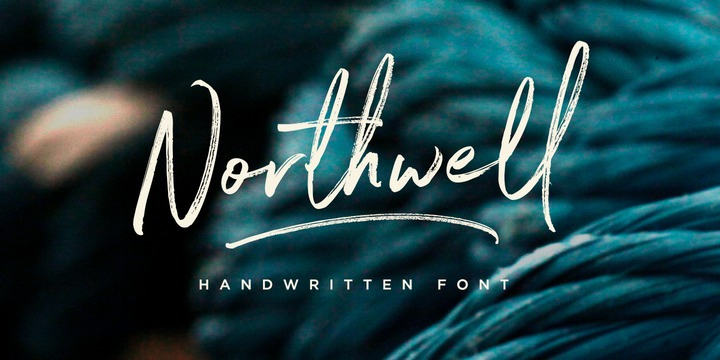
Northwell Font
Northwell Font is perfect for handwritten personal branding, authentic artisan marketing, casual restaurant signage, friendly small business communications, handmade craft labels, personal service advertising, genuine lifestyle campaigns, and warm community-focused messaging.
What makes Northwell Font exciting is its handwritten authenticity that embodies genuine personal connection and natural warmth with artisan character and human touch. The font features natural letterforms with handwritten proportions and personal character variations that evoke handwritten notes, personal signatures, and the authentic warmth of human communication and personal interaction. Its distinctive handwritten styling and personal appeal communicate genuineness, warmth, and human connection, making every message feel personally written and touched by the authentic beauty of handwritten communication and genuine personal care.
The Northwell Font family includes regular weight with uppercase and lowercase letters, numerals, punctuation marks, and special characters. Premium versions often feature handwritten alternates and personal elements that enhance the authentic, artisan aesthetic perfect for personal branding and craft applications.
This genuine handwritten typeface brings instant authenticity and personal credibility to any human-centered project. Northwell Font Free Download delivers exceptional results for personal service providers and artisan businesses seeking to communicate genuine warmth, handwritten quality, and personal attention to customers seeking authentic human connections.
The personal character of Northwell Font makes it particularly valuable for handmade artisans, personal service providers, and authentic local businesses. Its excellent readability ensures personal messaging and handwritten communications remain clear while maintaining the distinctive authentic aesthetic that appeals to customers seeking genuine personal experiences and handwritten quality.
Personal business marketers appreciate how Northwell Font effortlessly conveys handwritten authenticity and personal warmth. The font's natural proportions and human details create trustworthy brand materials that establish personal connections with audiences who value human interaction, artisan quality, and the authentic warmth of handwritten communication and personal service.
The versatile authenticity of this typeface extends to personal coaching, artisan workshops, and local community services where handwritten authenticity enhances personal credibility and human appeal. Northwell Font Free Download provides creative professionals with an essential tool for developing memorable, connection-driven designs that resonate with audiences who embrace personal authenticity, human warmth, and the genuine character of handwritten communication in their personal and business relationships.